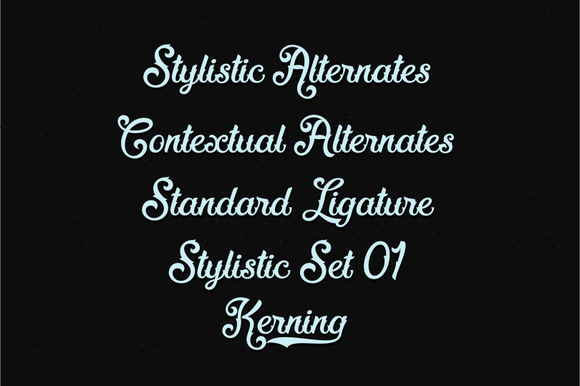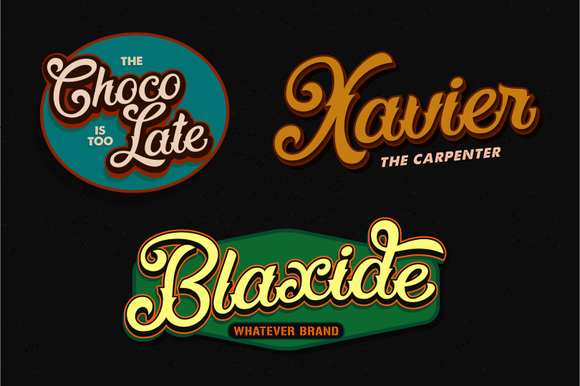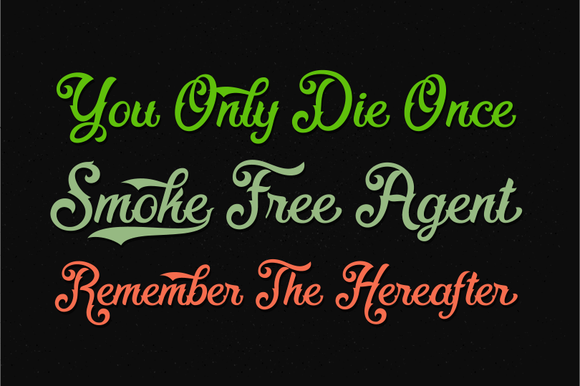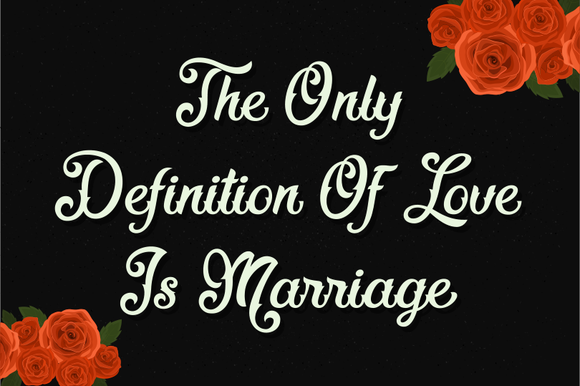
Fadli Script Font
About Fadli Script Font
Fadli Script is a handwritten font that is influenced by tattoo lettering.
The Fadli Script is a great font for creating branding, decorating clothing, creating logos, and more. You are guaranteed to make a lasting impression with this beautiful typeface.